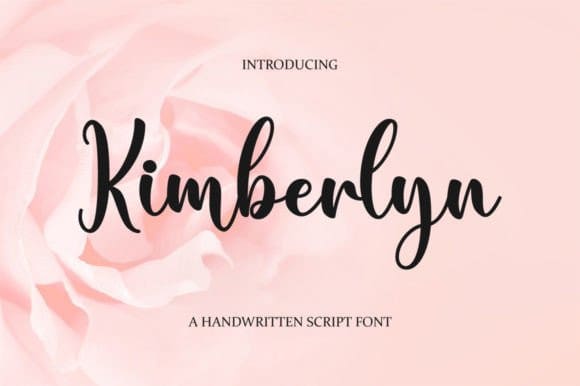
Kimberlyn Script Font
Kimberlyn Script Font is a lovely and timeless handwritten font. It is the best choice for creating eye-catching logos, branding, and quotes. Kimberlyn is PUA encoded which means you can access all of the glyphs and swashes with ease!